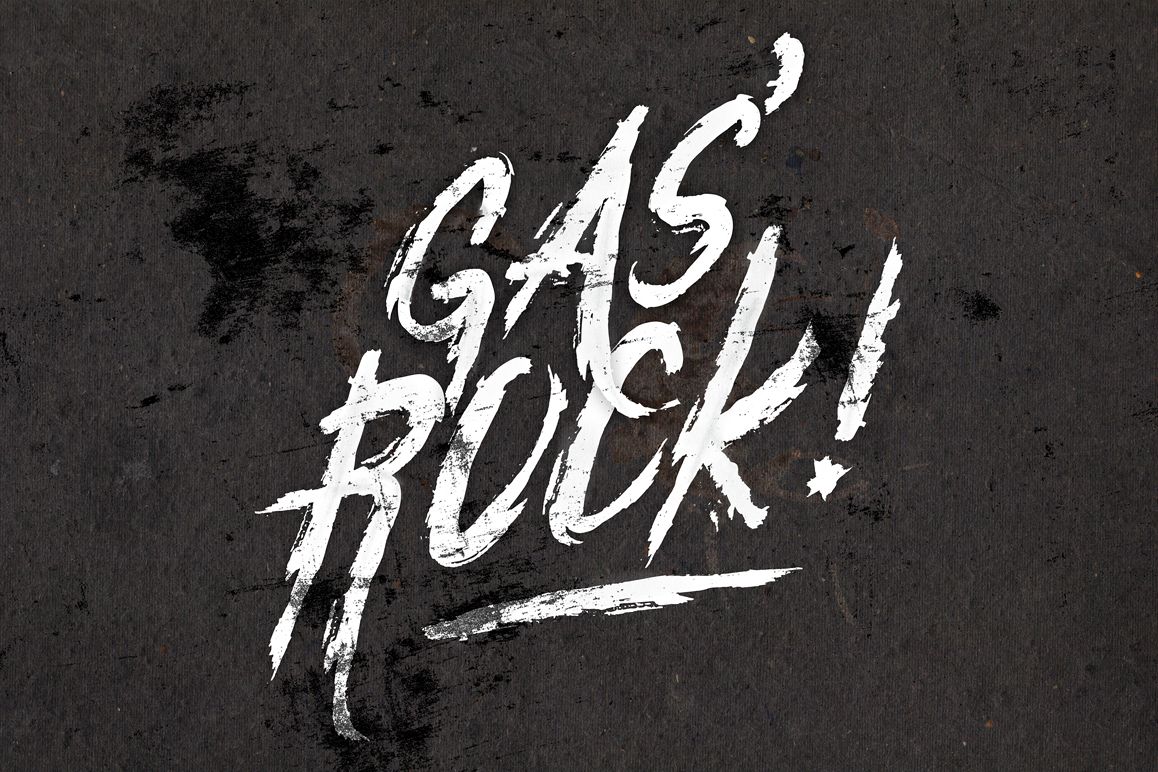
Gas'Rock! Font
Gas'rock!
With Gas'Rock! you can make it easier to convey the
message in your design.
Use for awesome display, labeling, clothing,
movie sceen, poster, movie title, gigs, album covers, logos, and much
more.
Font has rough lines and is perfect for when you need to have a street and rough look & feel.